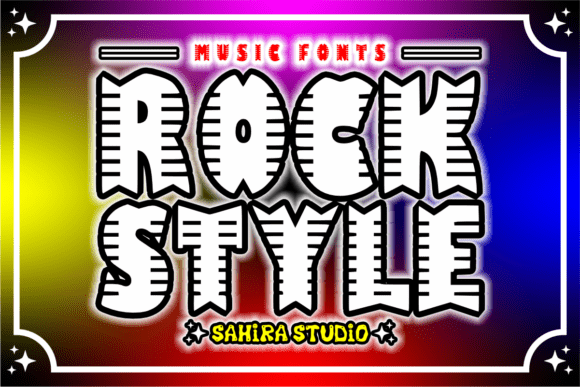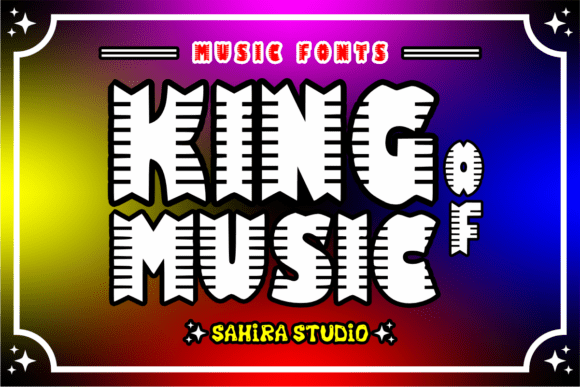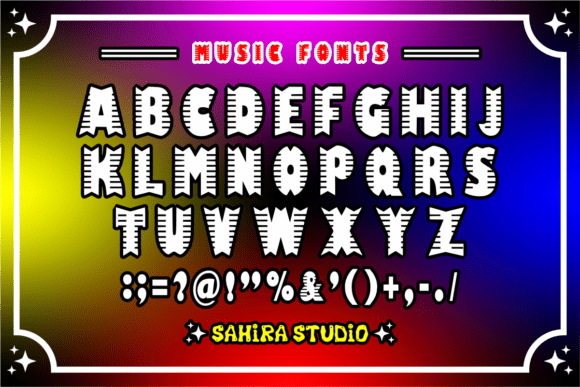
Guitar Hero Font: A Modern Cartoon Delight for Creative Designs
Are you a designer, crafter, or enthusiast looking for a unique and playful font to elevate your creative projects? Look no further than the Guitar Hero Font, a modern cartoon font that is sure to capture the hearts of kids and adults alike. This charming font consists of only uppercase letters, each with its own distinct personality, making it easily recognizable and perfect for a wide range of applications.
What Makes Guitar Hero Font So Special?
The Guitar Hero Font is a one-of-a-kind typeface that boasts a fresh and modern aesthetic. Its uppercase letters are carefully crafted to be cute, unique, and sweet, giving your designs a touch of whimsy and fun. Whether you’re working on children’s craft designs, sublimated t-shirts, mugs, tote bags, animations, comic titles, children’s coloring books, or children’s supplies, this font is sure to bring a smile to your audience’s faces.
The versatility of the Guitar Hero Font is one of its most exciting features. With its bold and playful design, you can use it to create a wide range of projects, including:
- Children’s craft designs: Add a touch of personality to your craft projects, such as stickers, stencils, and coloring pages.
- Sublimated t-shirts: Create eye-catching apparel that kids and adults will love.
- Mugs and tote bags: Add a playful touch to your home decor and accessory designs.
- Animations and comic titles: Bring your animated stories and comics to life with this fun and engaging font.
- Children’s coloring books and supplies: Create engaging and interactive content for kids.
Why Designers and Crafters Love Guitar Hero Font
As a designer or crafter, you’re always on the lookout for fonts that can help you stand out from the crowd and bring your creative vision to life. The Guitar Hero Font offers several benefits that make it a top choice for creative professionals:
- Unique and recognizable design: The font’s modern cartoon aesthetic sets it apart from more traditional typefaces.
- Easily readable: Despite its playful design, the font remains clear and easy to read, making it perfect for titles, headings, and short paragraphs.
- Highly versatile: Use it across a range of projects, from digital designs to print materials.
- Kid-friendly: The font’s sweet and playful design makes it an excellent choice for projects targeting children.
Tips for Using Guitar Hero Font
To get the most out of the Guitar Hero Font, here are some tips to keep in mind:
- Experiment with colors: The font’s bold design looks great in bright, bold colors. Don’t be afraid to try out different color combinations to add depth and interest to your designs.
- Mix and match: Combine the Guitar Hero Font with other fonts to create visually appealing contrasts and add hierarchy to your designs.
- Keep it simple: While the font is playful, it’s still a bold design. Balance it with simpler elements to avoid overwhelming your audience.
| Author | Sahira Studio |
The Guitar Hero Font is a modern cartoon delight that is sure to inspire your creative projects. With its unique and recognizable design, versatility, and kid-friendly aesthetic, it’s the perfect choice for designers, crafters, and enthusiasts looking to add a touch of fun and whimsy to their work. So why wait? Download the Guitar Hero Font today and let your imagination run wild!